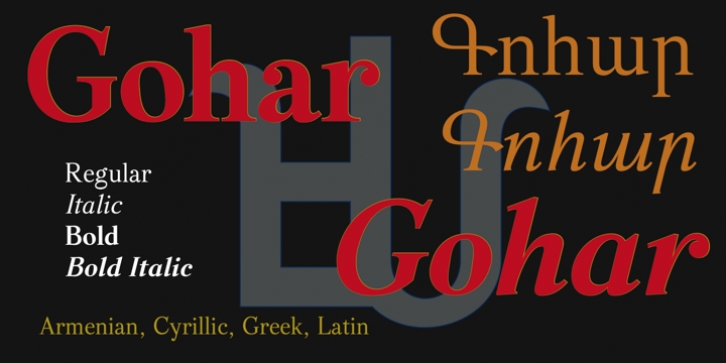
GHEA Gohar downloadDesigner: Edik Ghabuzyan
The font family includes: Armenian, Cyrillic, Greek and Latin alphabet systems and Mathematical symbols. Containing styles: Regular, Italic, Bold, Bold Italic.
This font is recommended to be used in books, magazines, office documentations.